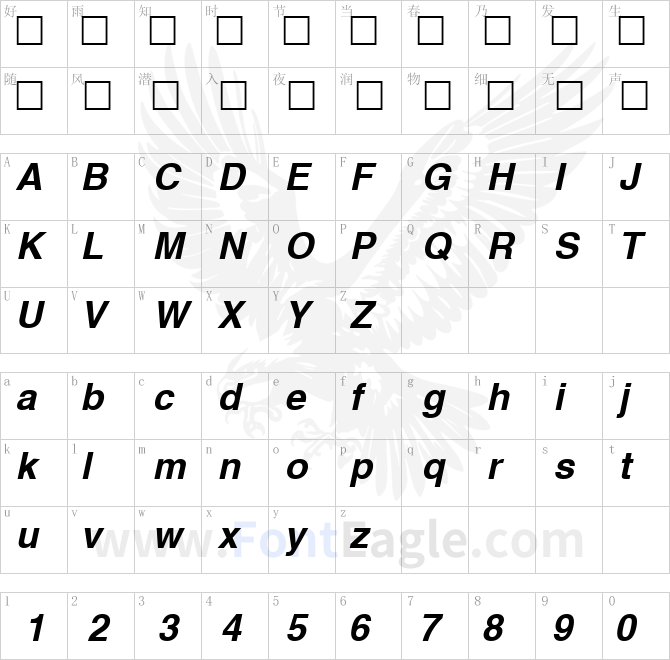
- Font name:Helvetica
- Font Subfamily:Bold Oblique
- Font Subfamily ID:DSGN:Helvetica Cyrillic Bold Oblique
- Font Full Name:Helvetica Cyrillic Bold Oblique